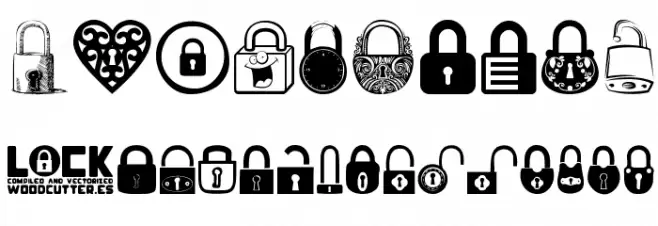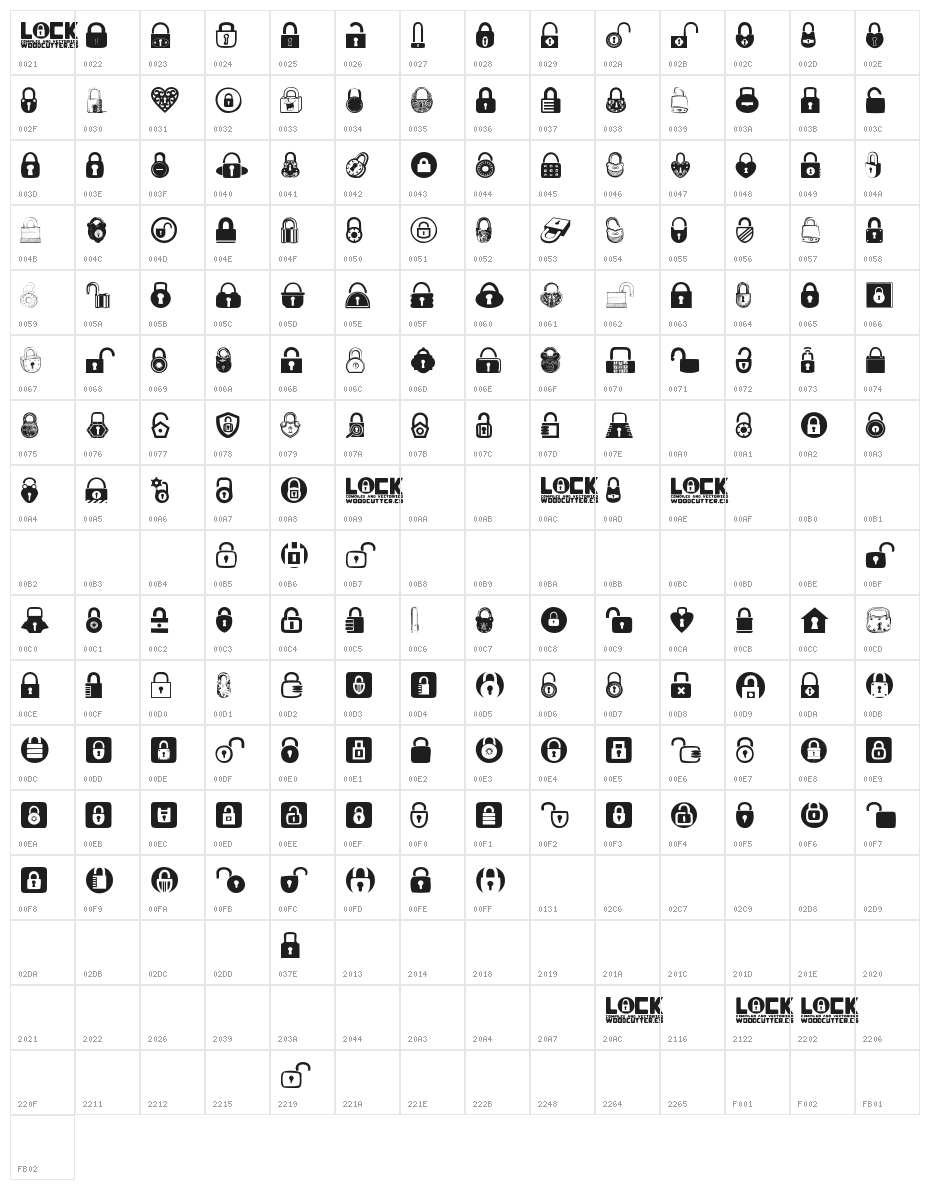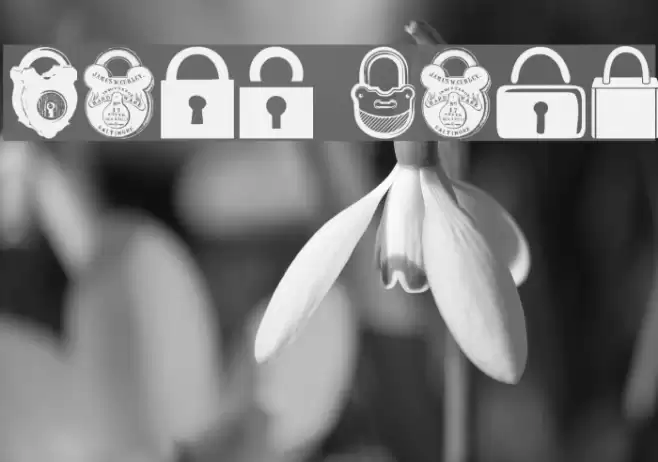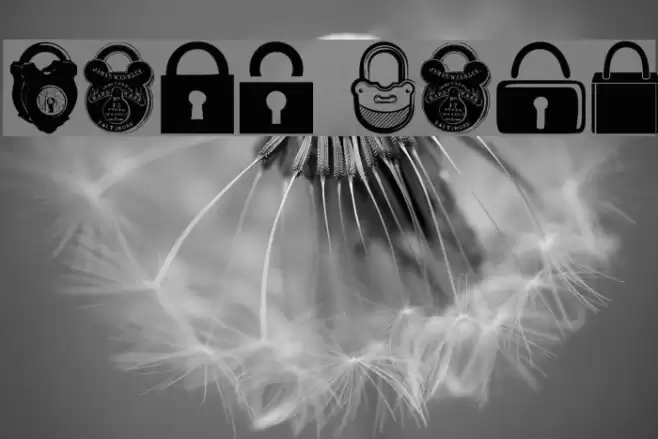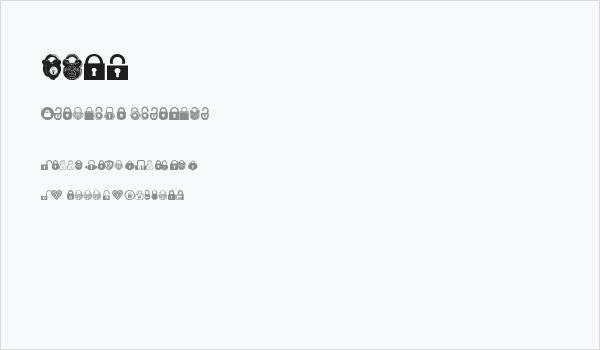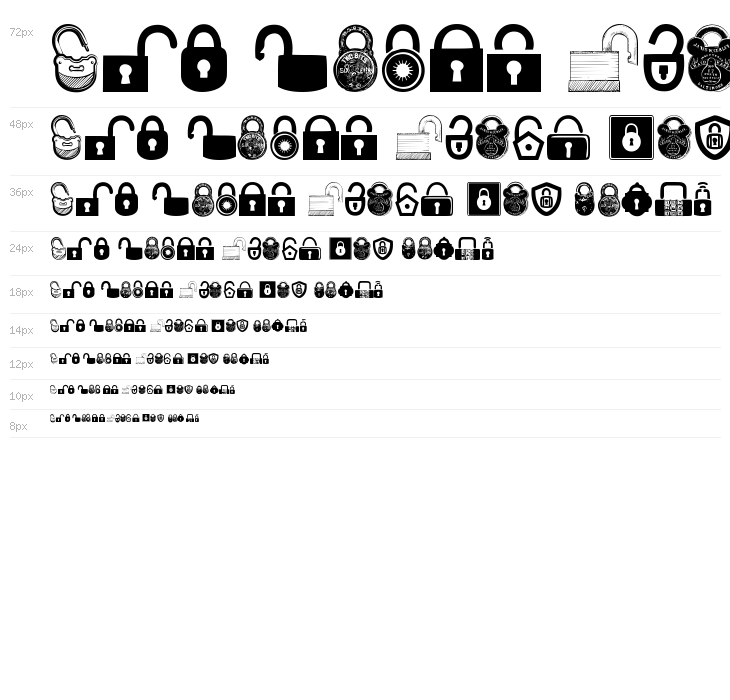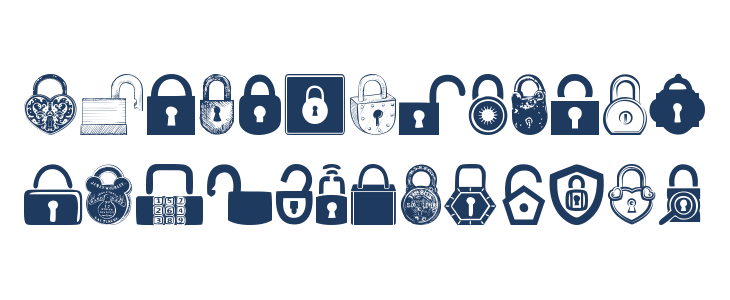
Lock Font
Lock Description
A decorative and illustrative dingbat font featuring a wide variety of lock and padlock icons, including ornate, modern, heart-shaped, shielded, and combination lock designs. Each glyph is a unique lock illustration, rendered in black and white with both filled and outlined styles.
| Overall Style | Decorative, Illustrative, Thematic |
| Use Case | Icons, Decorative elements, Thematic graphics |
| Proposed Projects | Security-themed posters, infographics, app icons, educational materials, branding for locksmiths, and decorative elements in graphic design. |